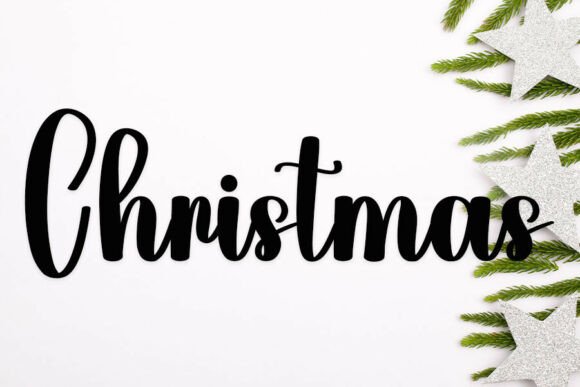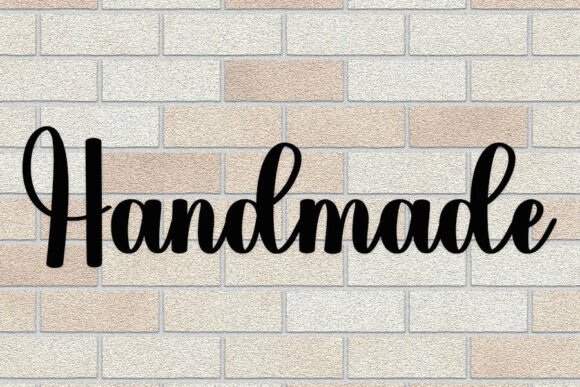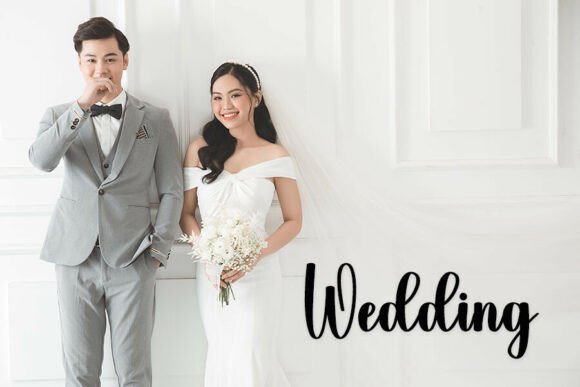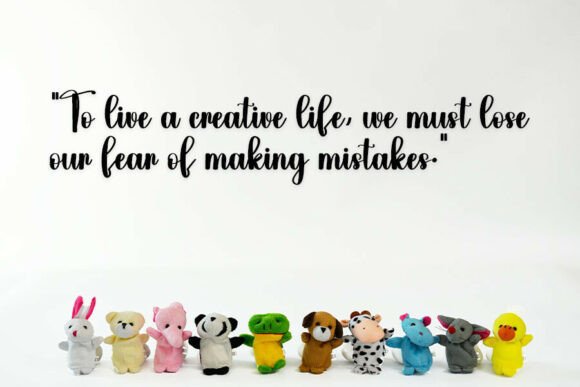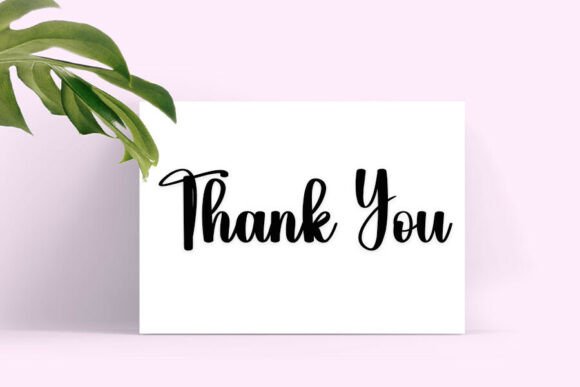
Introducing Avocado Font: The Sweet and Cursive Handwritten Font for Elegant Designs
Are you looking for a font that can add a touch of elegance and romance to your designs? Look no further than Avocado Font, a sweet and cursive handwritten font that is perfect for a variety of design projects. In this article, we’ll take a closer look at Avocado Font and explore its features, benefits, and uses.
What is Avocado Font?
Avocado Font is a beautiful, handwritten font that is designed to add a touch of joy and romance to your designs. Its gentle curves and sweet letterforms make it perfect for a wide range of projects, from branding and logos to wedding invitations and greeting cards.
Key Features of Avocado Font
- Sweet and Cursive Handwritten Style: Avocado Font features a beautiful, cursive handwritten style that is both elegant and casual.
- Versatile: This font is perfect for a variety of design projects, including branding, logos, wedding invitations, greeting cards, fashion, lookbooks, and marketing promotions.
- Elegant and Romantic: Avocado Font adds a touch of elegance and romance to any design, making it perfect for projects that require a sophisticated look.
- Casual and Friendly: Despite its elegant look, Avocado Font is still casual and friendly, making it perfect for projects that require a more approachable tone.
Benefits of Using Avocado Font
So why choose Avocado Font for your design projects? Here are just a few benefits of using this beautiful font:
- Stand out from the Crowd: With Avocado Font, you can create designs that stand out from the crowd and grab attention.
- Easy to Read: This font is highly legible, making it perfect for projects that require a clear and easy-to-read message.
- Customizable: Avocado Font is highly customizable, allowing you to adjust the font size, color, and style to fit your design needs.
- Time-Saving: With Avocado Font, you can create professional-looking designs in no time, saving you time and effort.
Use Cases for Avocado Font
Avocado Font is perfect for a wide range of design projects, including:
- Branding and Logos: Create a professional and elegant brand identity with Avocado Font.
- Wedding Invitations and Stationery: Add a touch of romance and elegance to your wedding invitations and stationery.
- Greeting Cards: Create beautiful and heartfelt greeting cards for any occasion.
- Fashion and Lookbooks: Add a touch of style and sophistication to your fashion designs and lookbooks.
- Marketing Promotions: Create eye-catching marketing promotions that grab attention and drive results.
Tips for Using Avocado Font
Here are a few tips for using Avocado Font in your design projects:
- Pair with Other Fonts: Experiment with pairing Avocado Font with other fonts to create a unique and interesting look.
- Adjust Font Size and Color: Adjust the font size and color to fit your design needs and create visual hierarchy.
- Use for Headings and Titles: Use Avocado Font for headings and titles to add a touch of elegance and sophistication.
In conclusion, Avocado Font is a beautiful and versatile font that is perfect for a wide range of design projects. Its sweet and cursive handwritten style adds a touch of elegance and romance to any design, making it perfect for projects that require a sophisticated look. With its ease of use, customizability, and time-saving benefits, Avocado Font is a must-have for designers and crafters.